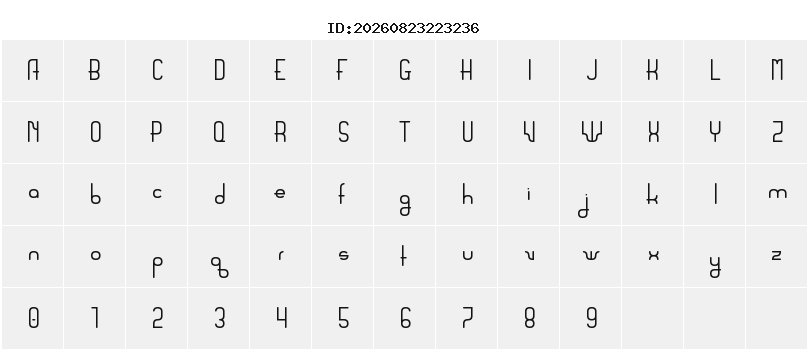
Sanserifing Preview
• Font Name: Sanserifing
• Full Font Name: Sanserifing
• Version: Version 1.00 March 17, 2007, initial release
• Designer: Audrius Skersys (Extate)
About Sanserifing.ttf
Sanserifing.ttf is a modern, elegant sans-serif font designed for ultimate readability and visual harmony. Perfect for branding, headlines, web design, and print materials.